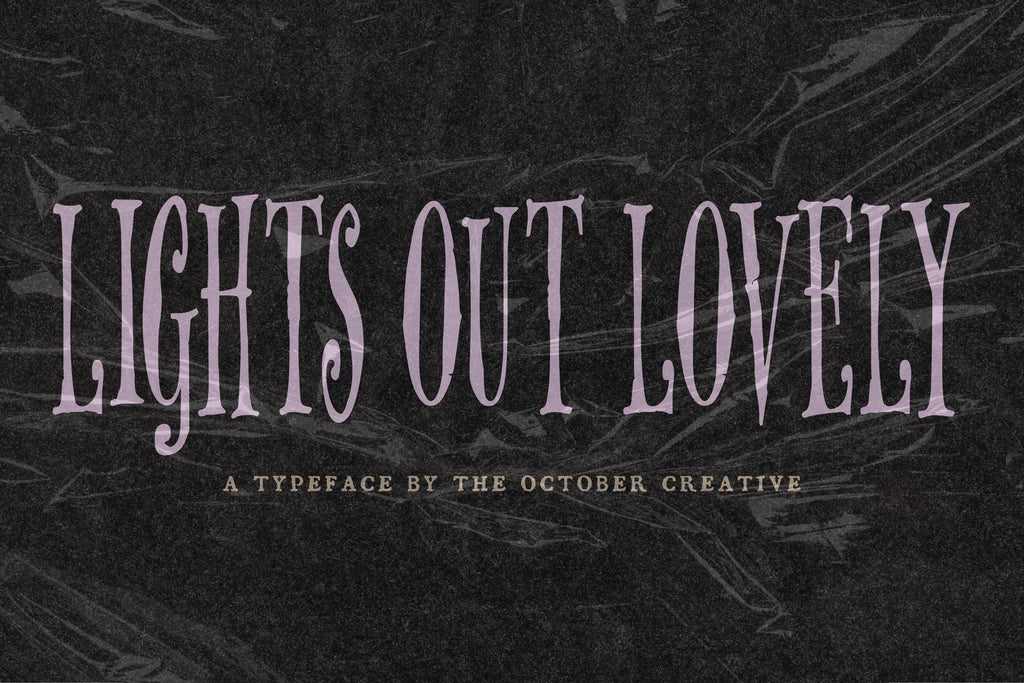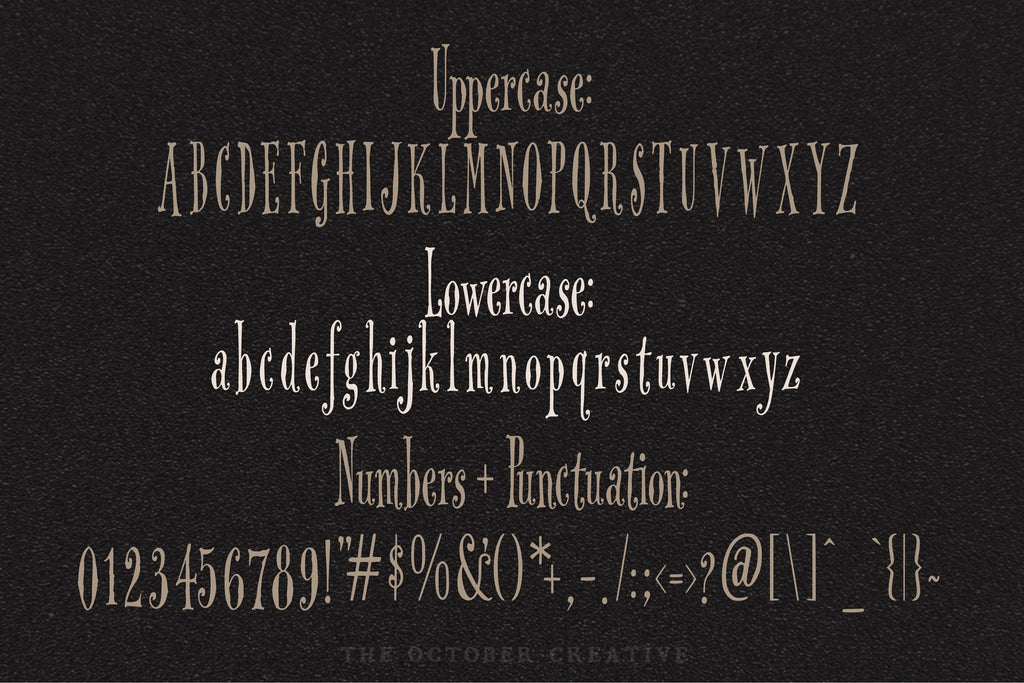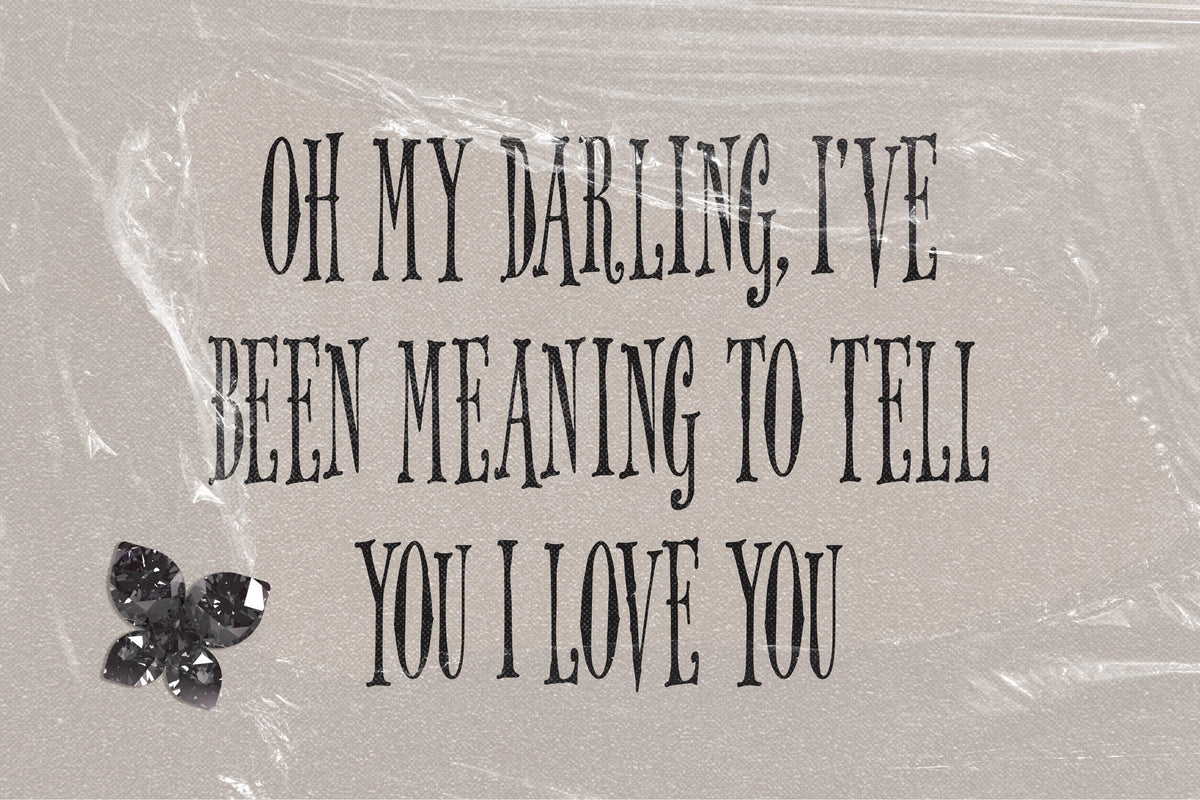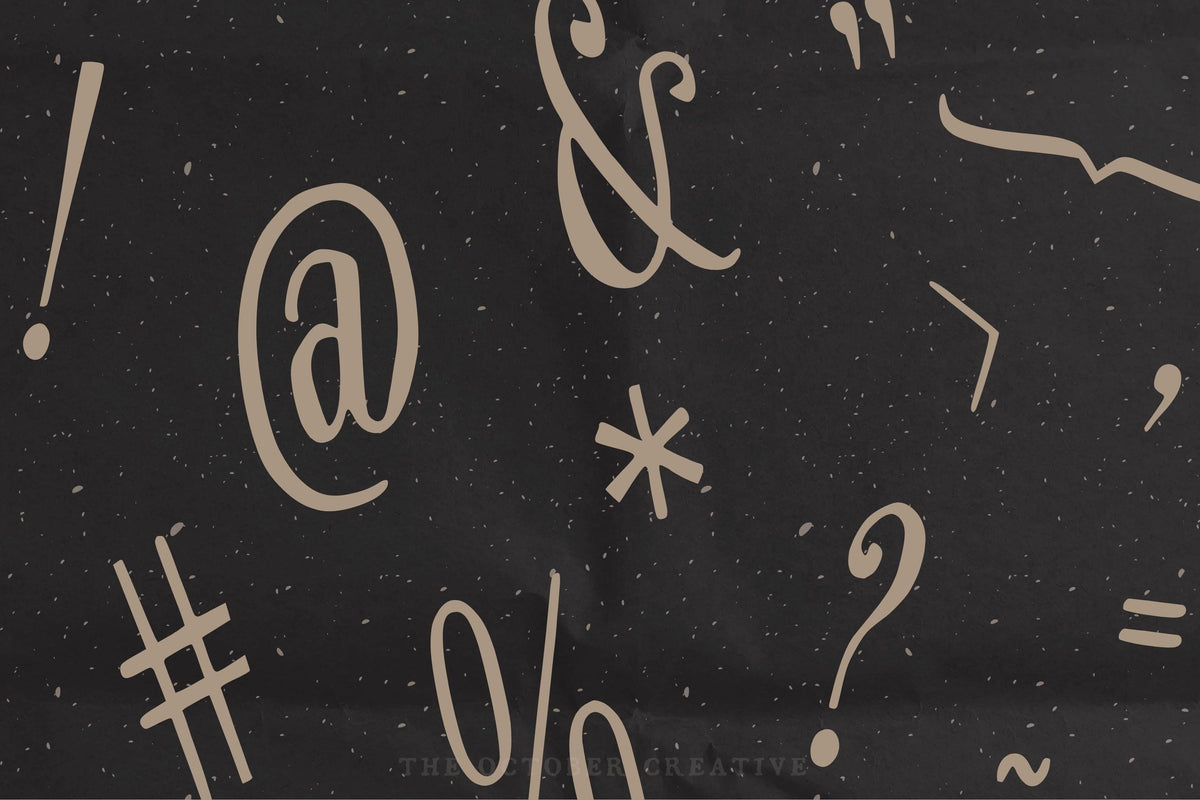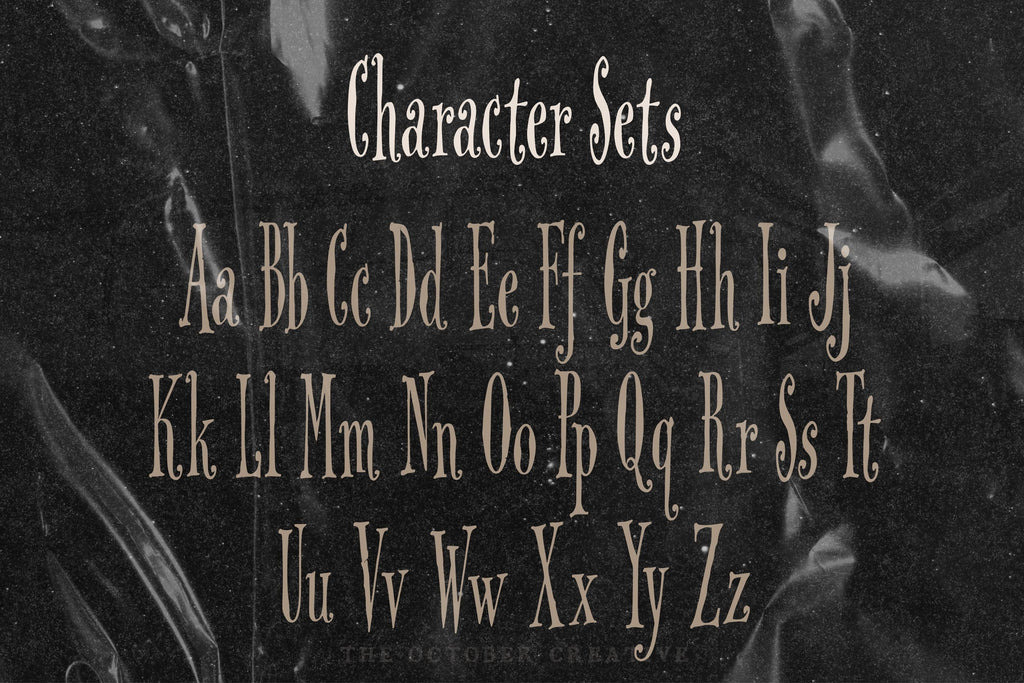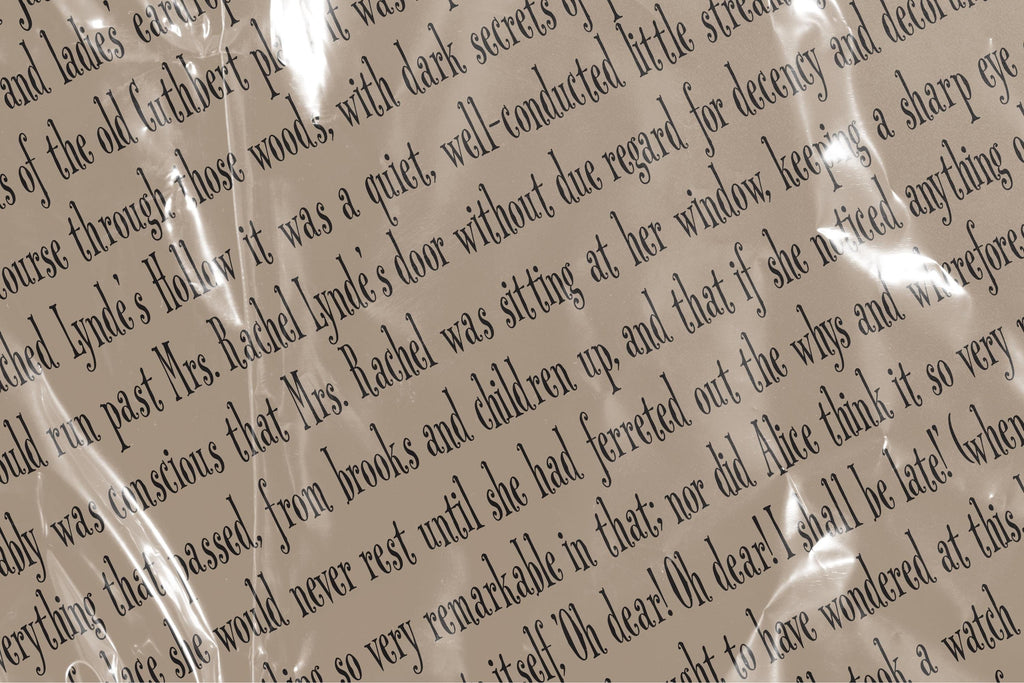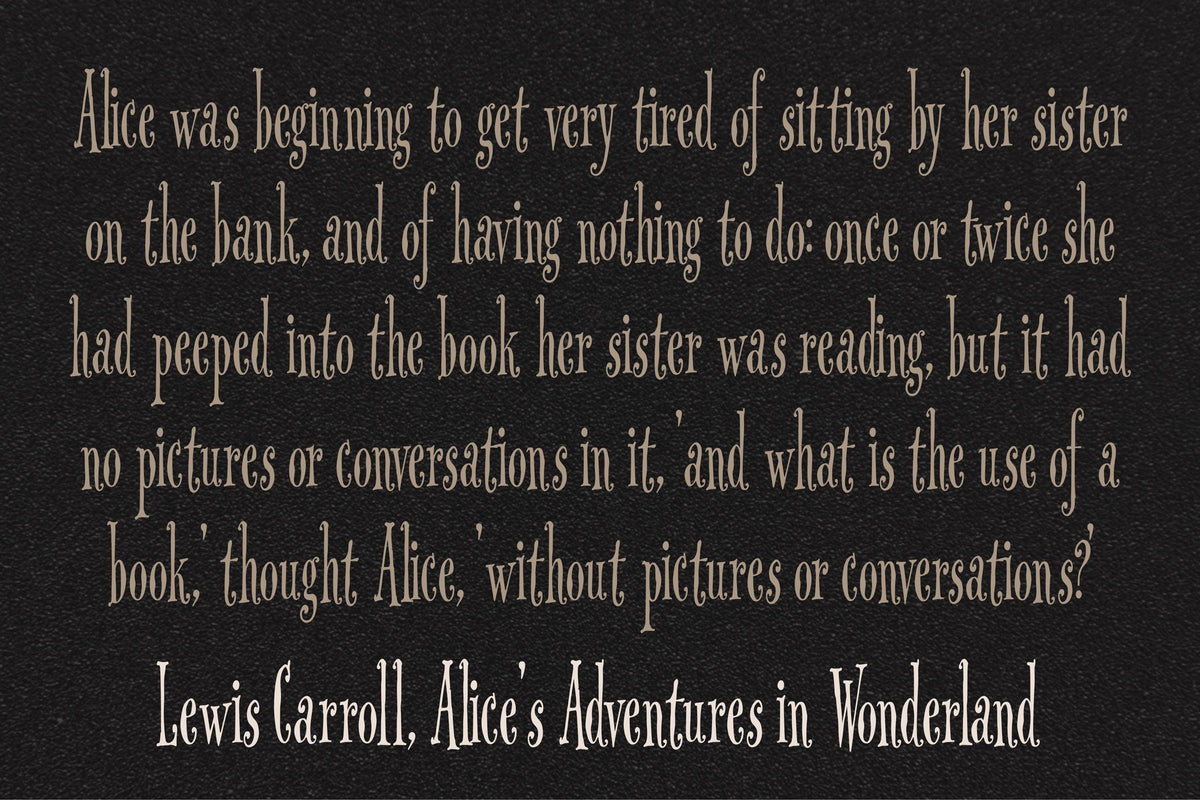
Lights Out Lovely Font
Lights Out Lovely gives Halloween invitations and ghost story titles a tall, dramatic shape. Its pointed letters and long trailing details are a lovely fit for haunted house party signs and menus with something suspicious in the punch.